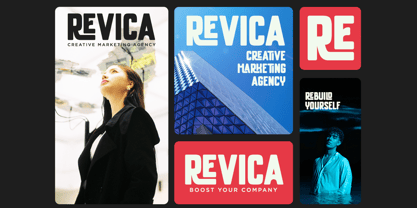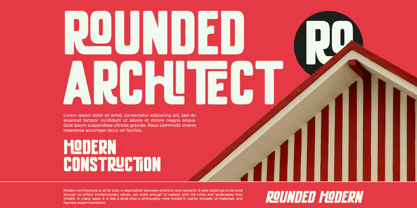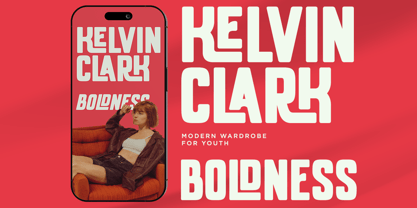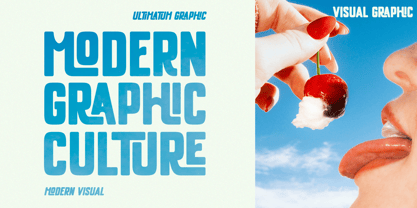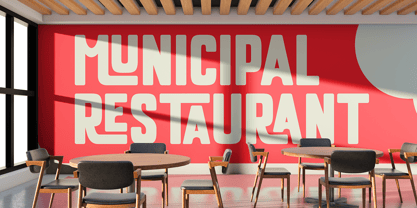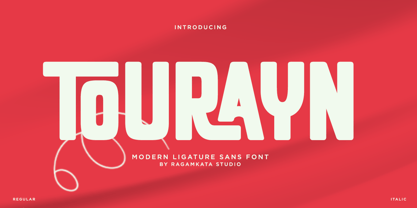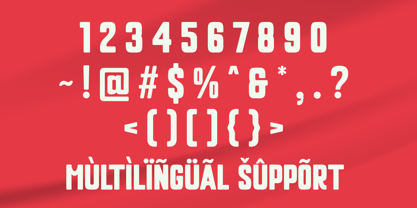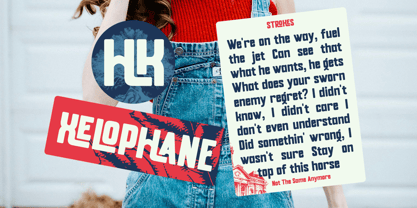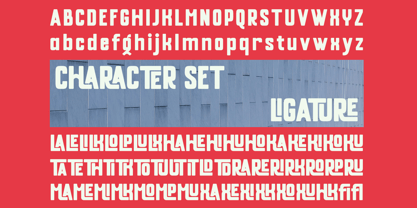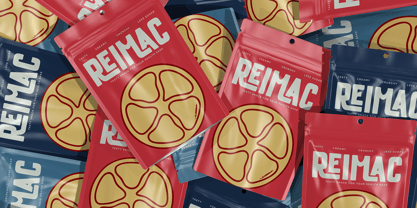
Tourayn
The Tourayn Font Family was designed by Yogiswhara Dio Prakoso Riadi and published by RagamKata. Tourayn contains 2 styles and family package options. More about this family
Tourayn is a bold, expressive modern sans-serif font characterized by smooth curves, confident shapes, and eye-catching ligatures that infuse a fresh, contemporary personality into any design. Its clean geometry, combined with unique stylistic elements, ensures it stands out in both minimalistic and vibrant compositions. Ideal for a variety of applications including branding, logo design, posters, titles, headlines, packaging, social media, UI/UX, and merchandise, Tourayn offers versatility and visual appeal for any creative project. Thank You ! Ragamkata